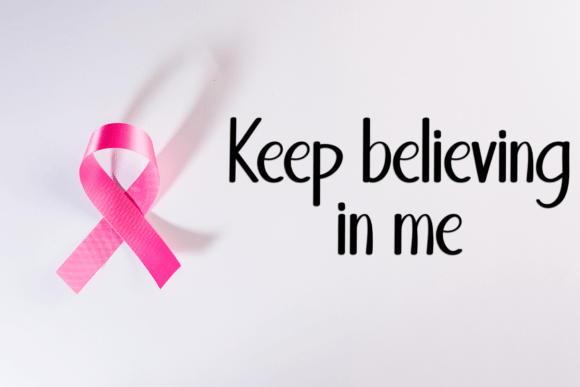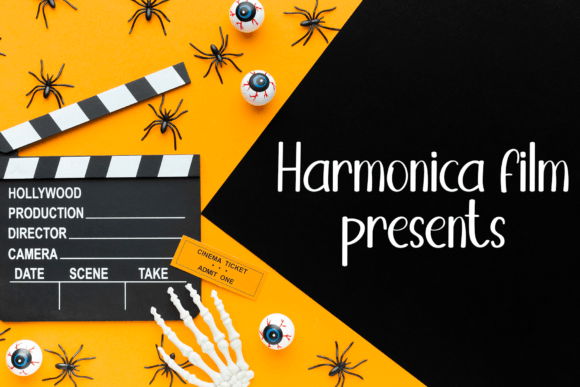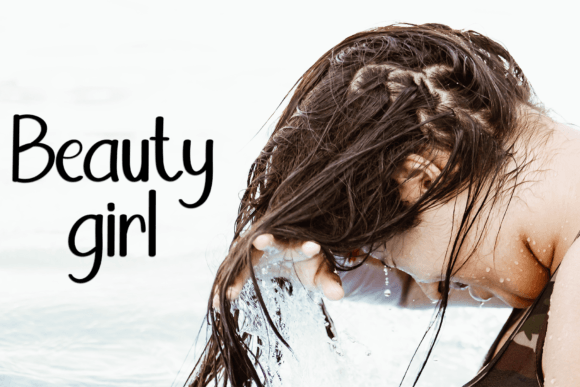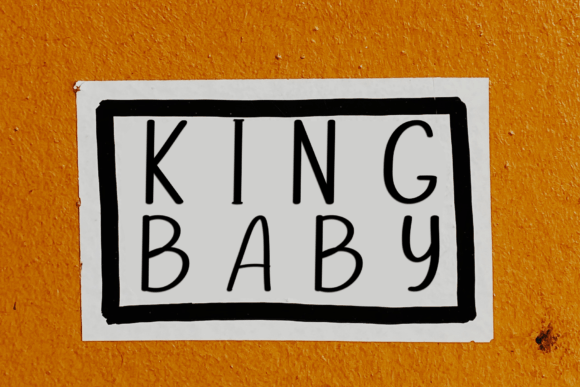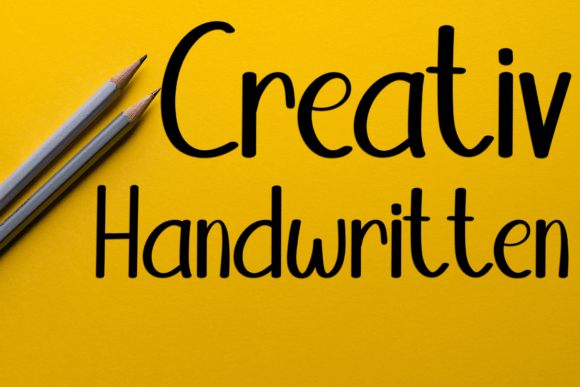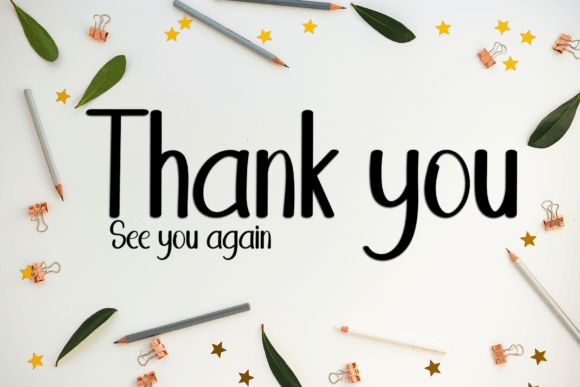
Introduction to Premium Vintage Font
Premium Vintage is a cool, simple, and playful handwritten font.
Incredibly versatile, this font fits a wide pool of designs, elevating them to the highest levels Add this font to your favorite creative ideas, and notice how it makes them come alive.
Key Features of Premium Vintage Font
Why Choose Premium Vintage Font?
Premium Vintage Font offers exceptional quality and versatility, making it a valuable addition to your design toolkit. Whether you’re creating for personal projects or commercial use, Premium Vintage Font delivers professional results.